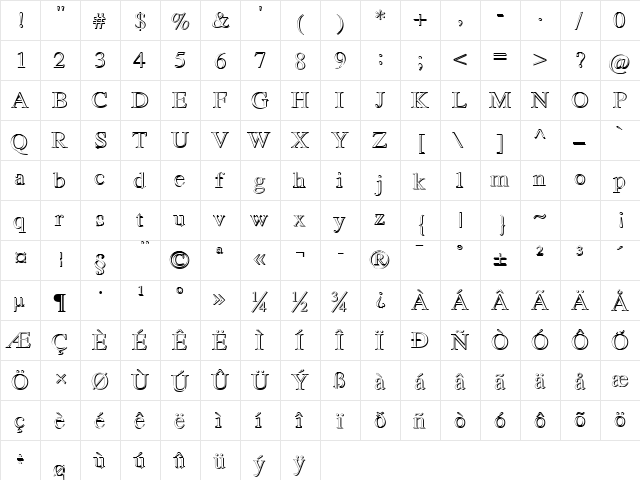
Romand Shadow DB Normal
Design Context for Romand Shadow DB Typeface
Romand Shadow DB is built around its visual character rather than neutral utility — its distinctive forms are designed to make an impression at display sizes.
Font Pairing: Pair with a clean neutral sans-serif for body copy to let Romand Shadow DB's character lead without overwhelming the composition.
Pro Tip: Use Romand Shadow DB exclusively at display sizes — it was designed to be seen, not read at length. Let a neutral companion handle body copy.